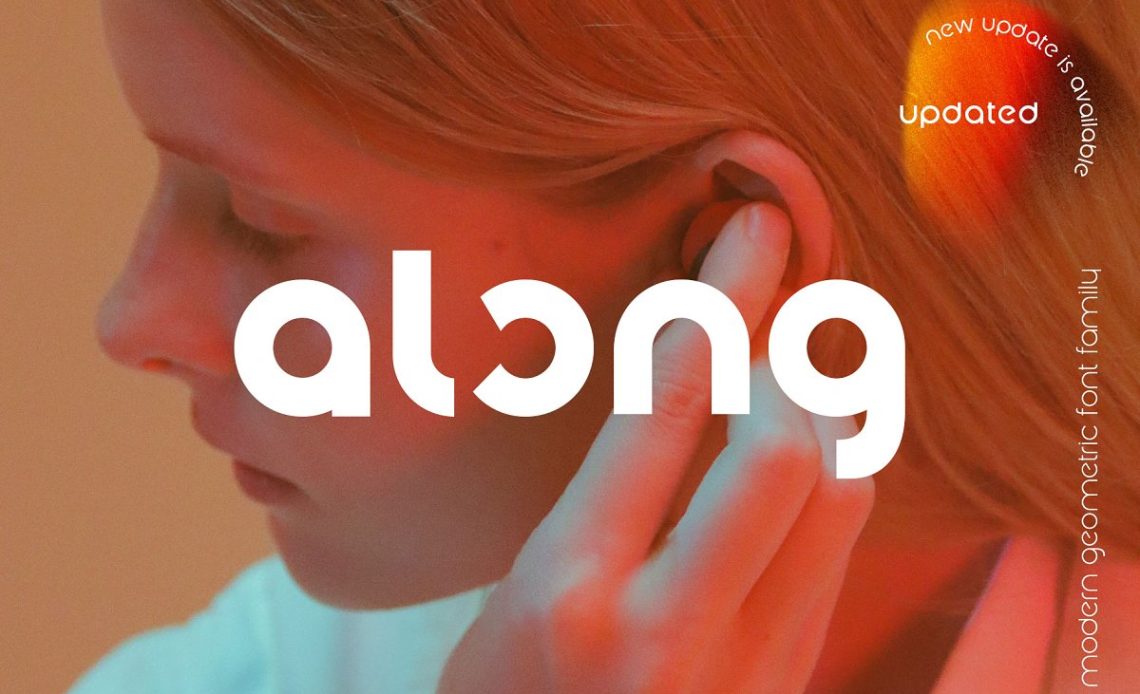
Introducing the Along Sans Geometric Font Family v3, the perfect sans serif font for display that will take your typography game to the next level. This font family, created by Ryul Davidson, has been updated with 34 modern ligatures, reflecting the latest design trends and maintaining consistency in glyphs.
With the new update, you can now create cute and elegant typography for logos, titles, and editorial designs effortlessly. The ligatures have been meticulously crafted to ensure seamless integration with the font, adding a touch of finesse to your work.
The ligatures include Ca, Co, Ga, Go, La, Lo, Oa, Oo, Pa, Po, ba, bo, ca, co, da, de, do, ea, fa, fo, gg, go, la, ll, lo, ly, mu, nu, oo, pa, po, rr, um, un. To access them, simply open the glyphs window or turn on ligatures in Adobe apps.
Overall, the Along Sans Geometric Font Family v3 is a must-have for anyone looking to elevate their typography game. Its modern design, consistency in glyphs, and easy-to-use ligatures make it the perfect choice for any project. Try it out now and see the difference it can make!